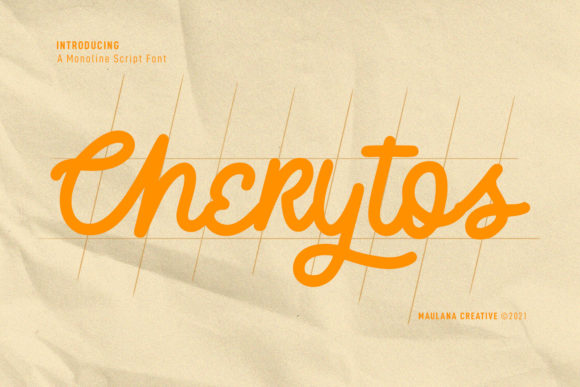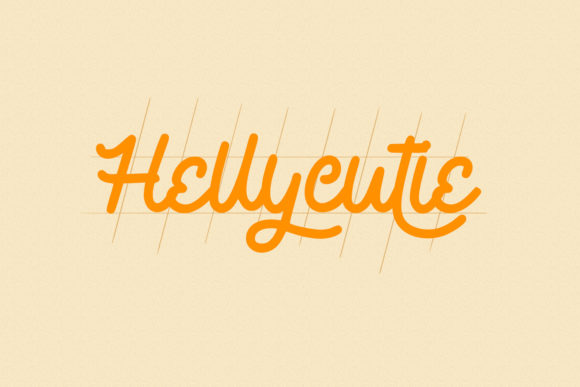
Cherytos Script Font
About Cherytos Script Font
Cherytos Script is a neat and vintage styled script font. Whatever the topic, this font will be a wonderful asset to your font library, as it has the potential to enhance any creation.